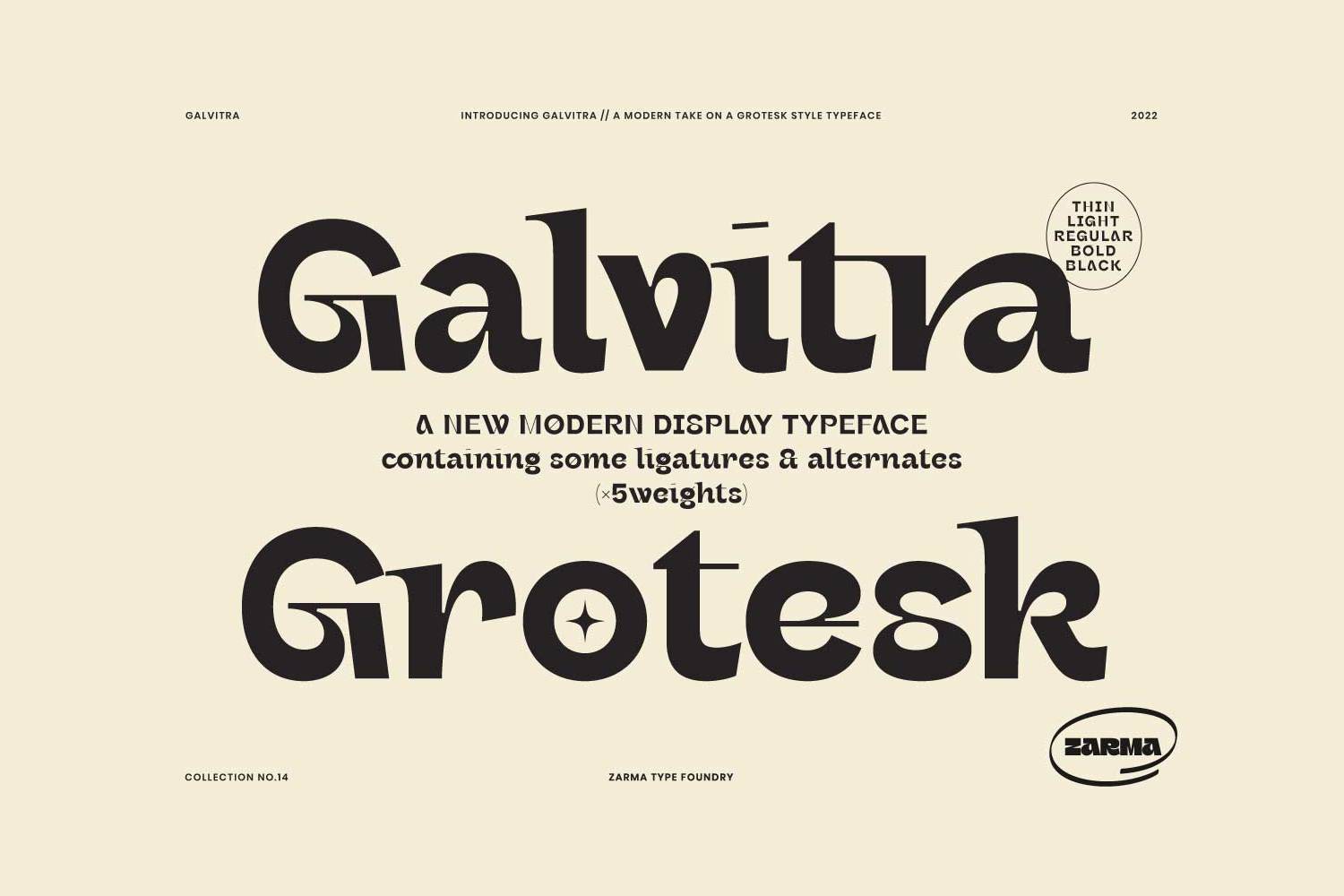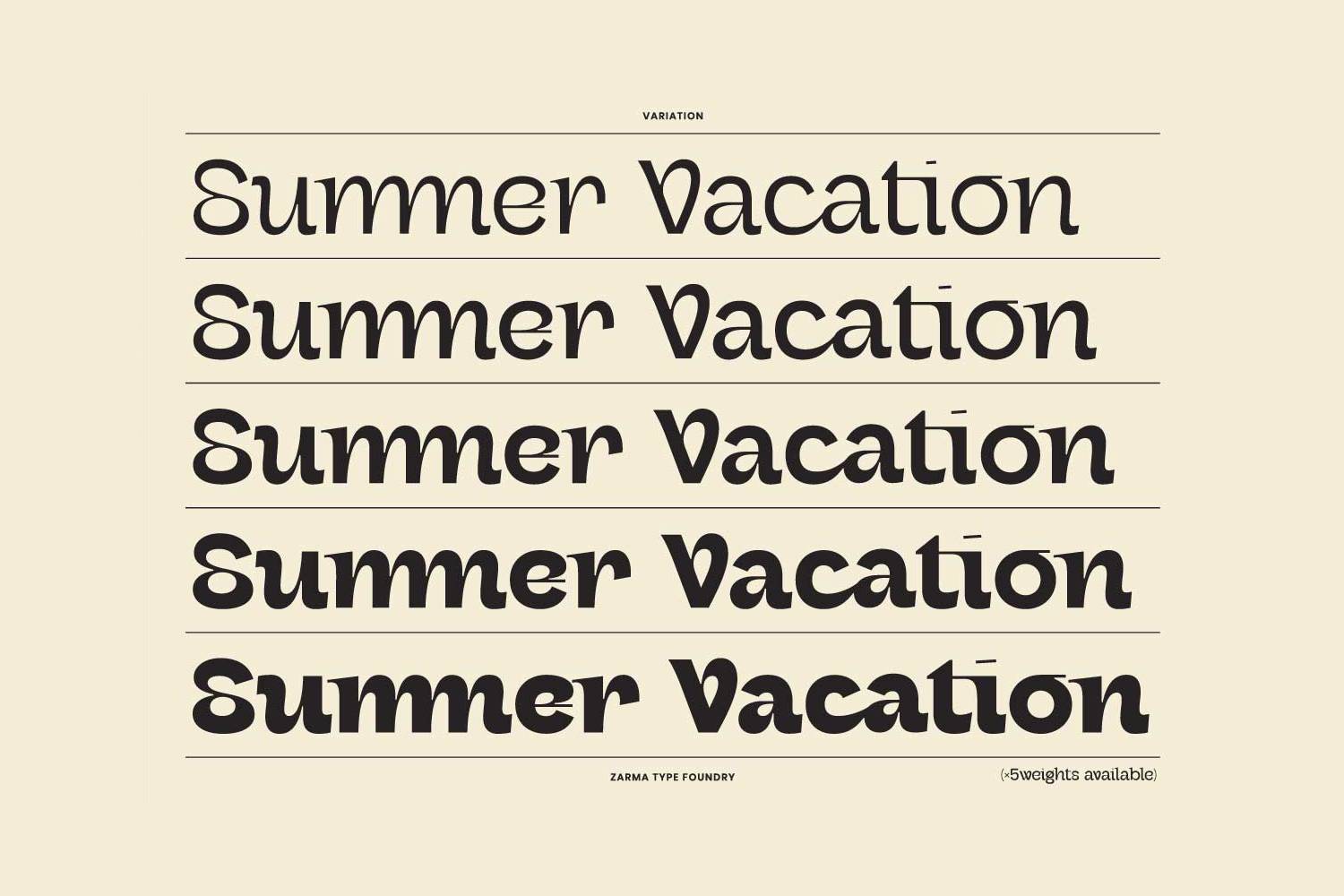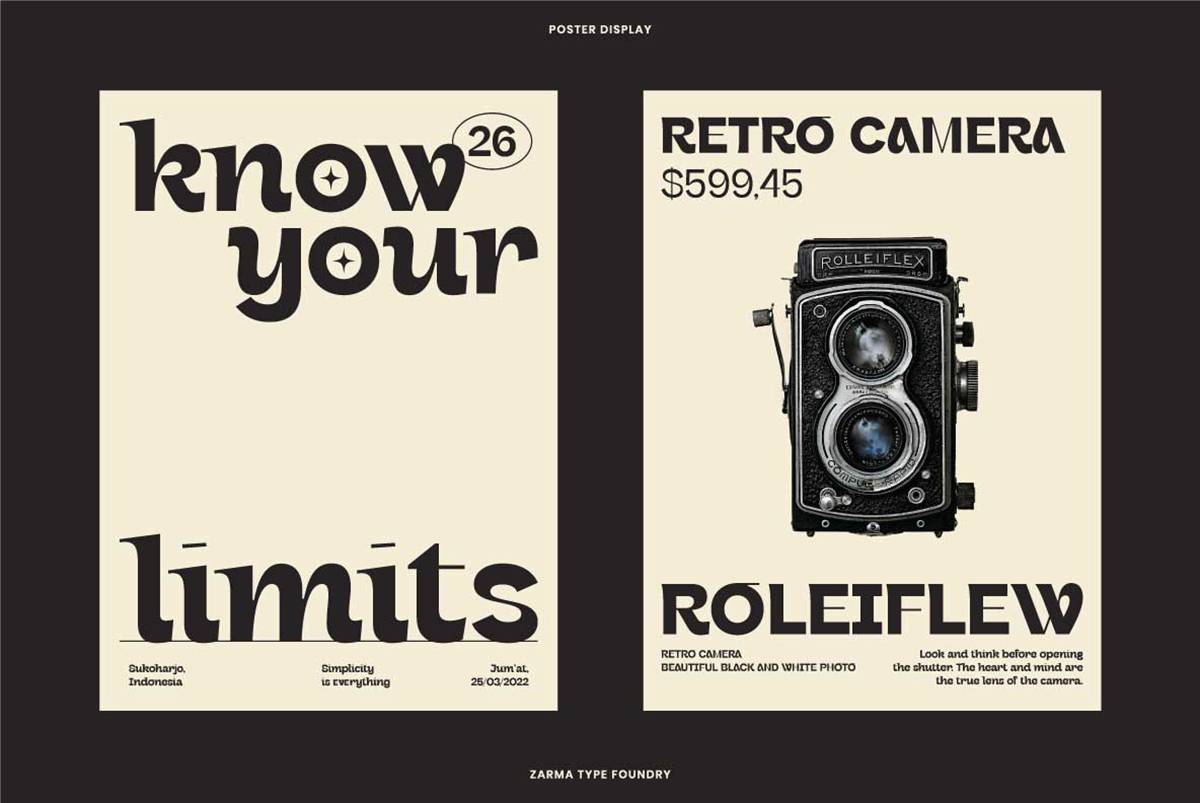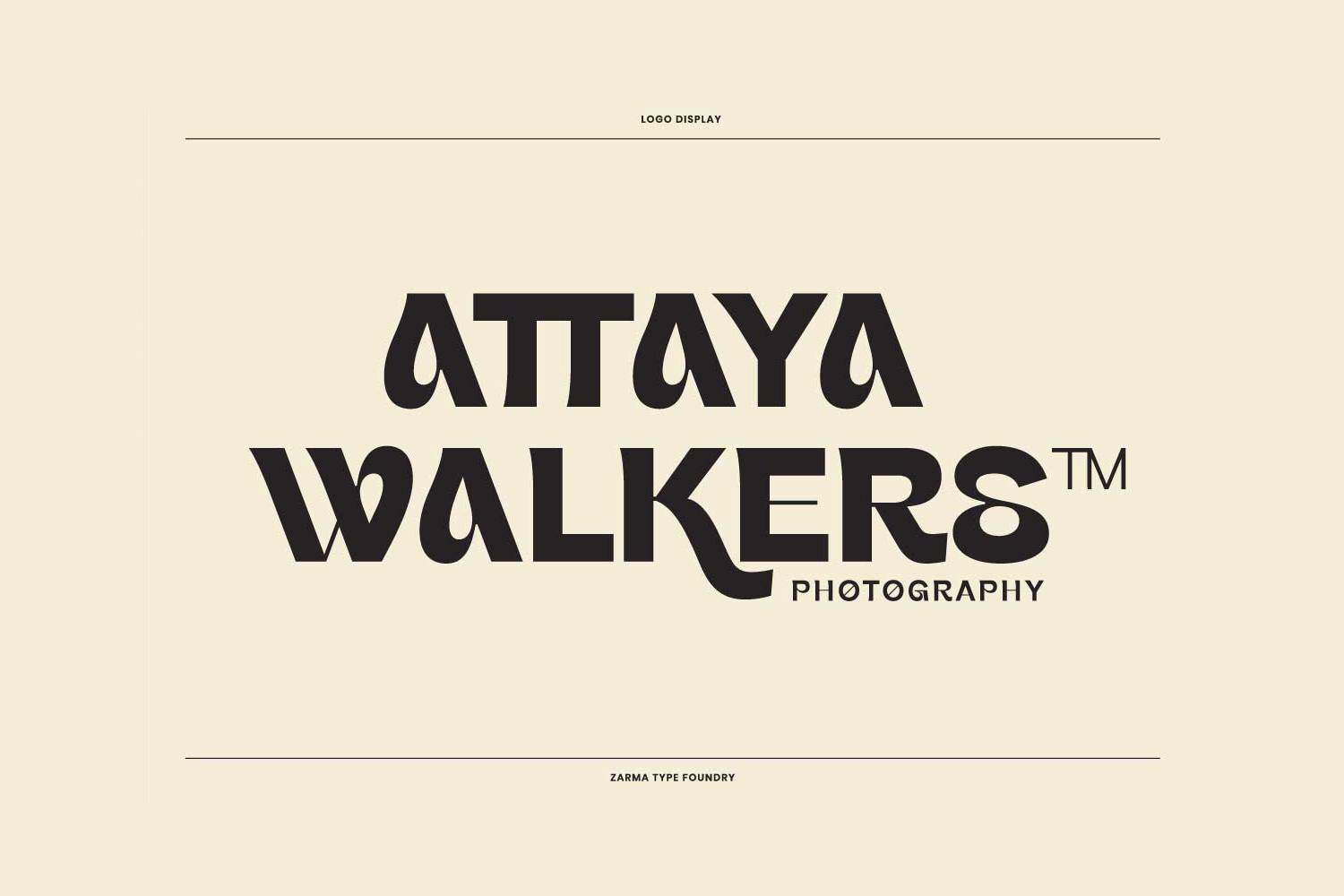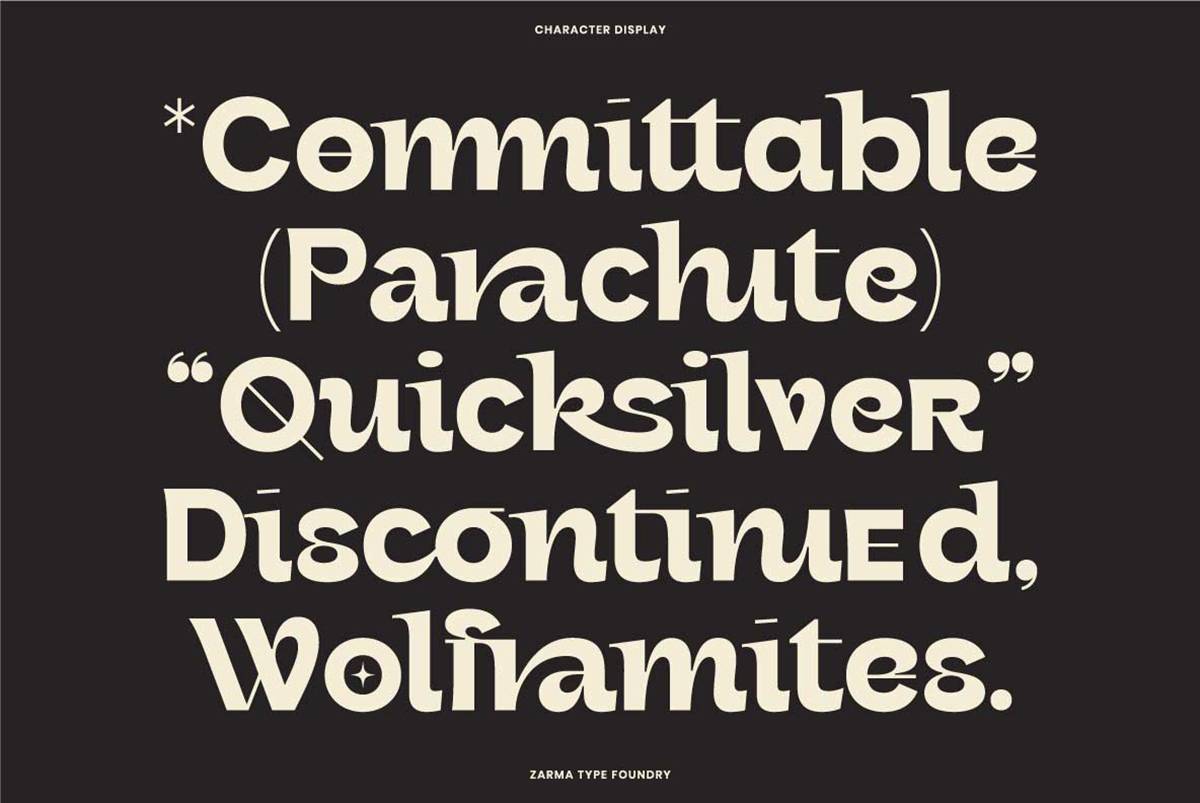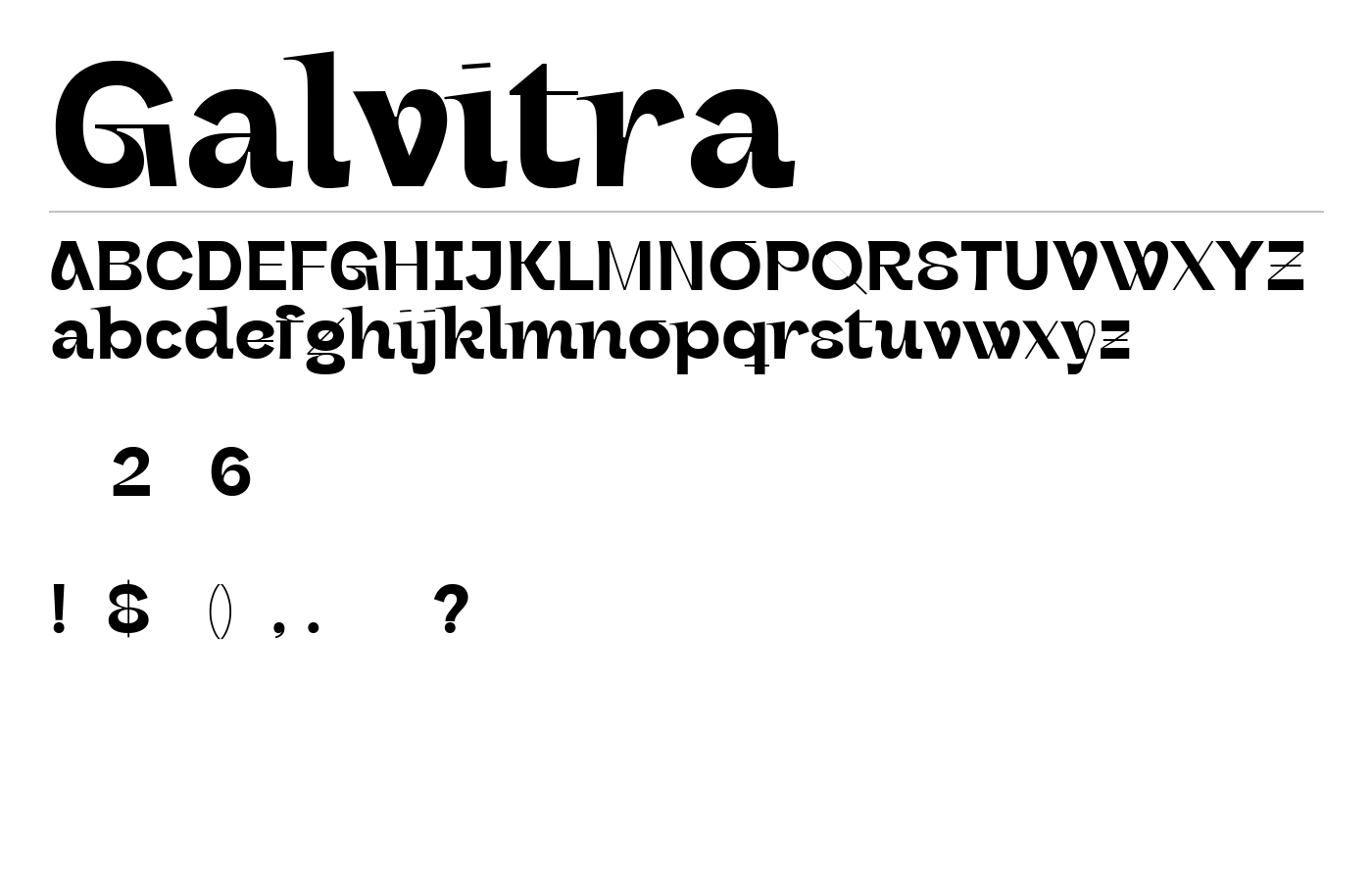
Galvitra is a bold serif font with a distinctive modern twist, featuring high contrast between thick and thin strokes and playful, unconventional letterforms. Its strong presence and quirky details make it ideal for eye-catching headlines, logos, and branding that seek to convey creativity and confidence. This font works well in editorial and packaging design where a unique, stylish impression is desired.
Galvitra Font
About Galvitra Font
| Font family | Galvitra Font |
| Release date | 2022-03-26 |
| Designer | Azzam Ridhamalik |